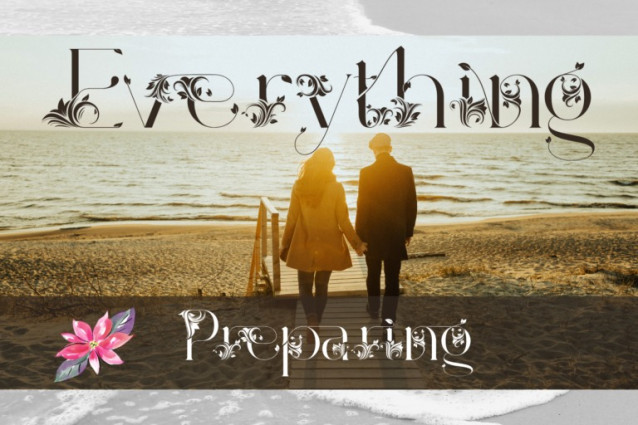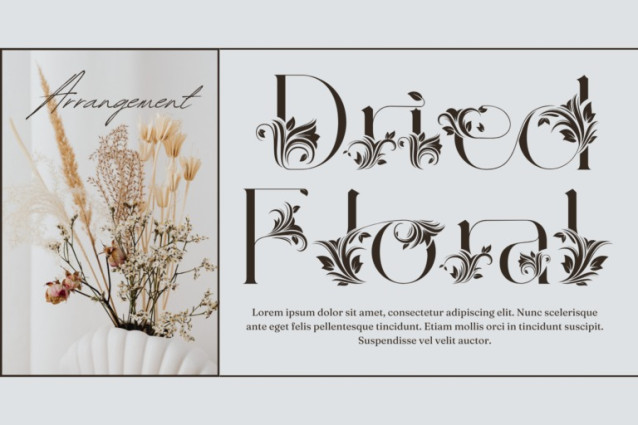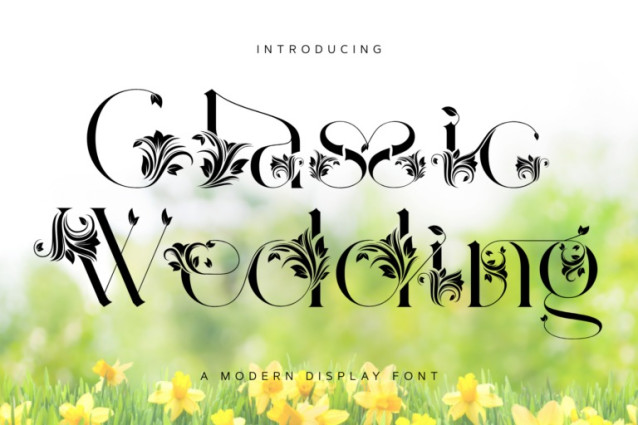
Classic Wedding Font
Classic Wedding Font – A Decorative Floral Display Font, a stunning decorative display font that blends timeless elegance with intricate floral ornamentation. Designed to make a bold yet graceful impression, this font is perfect for wedding invitations, luxury branding, vintage-inspired logos, book covers, and elegant packaging.
Each letter is adorned with beautifully crafted floral elements, giving your text a romantic and artistic flair. The detailed serifs and swirling embellishments evoke a sense of grandeur, sophistication, and classic beauty.